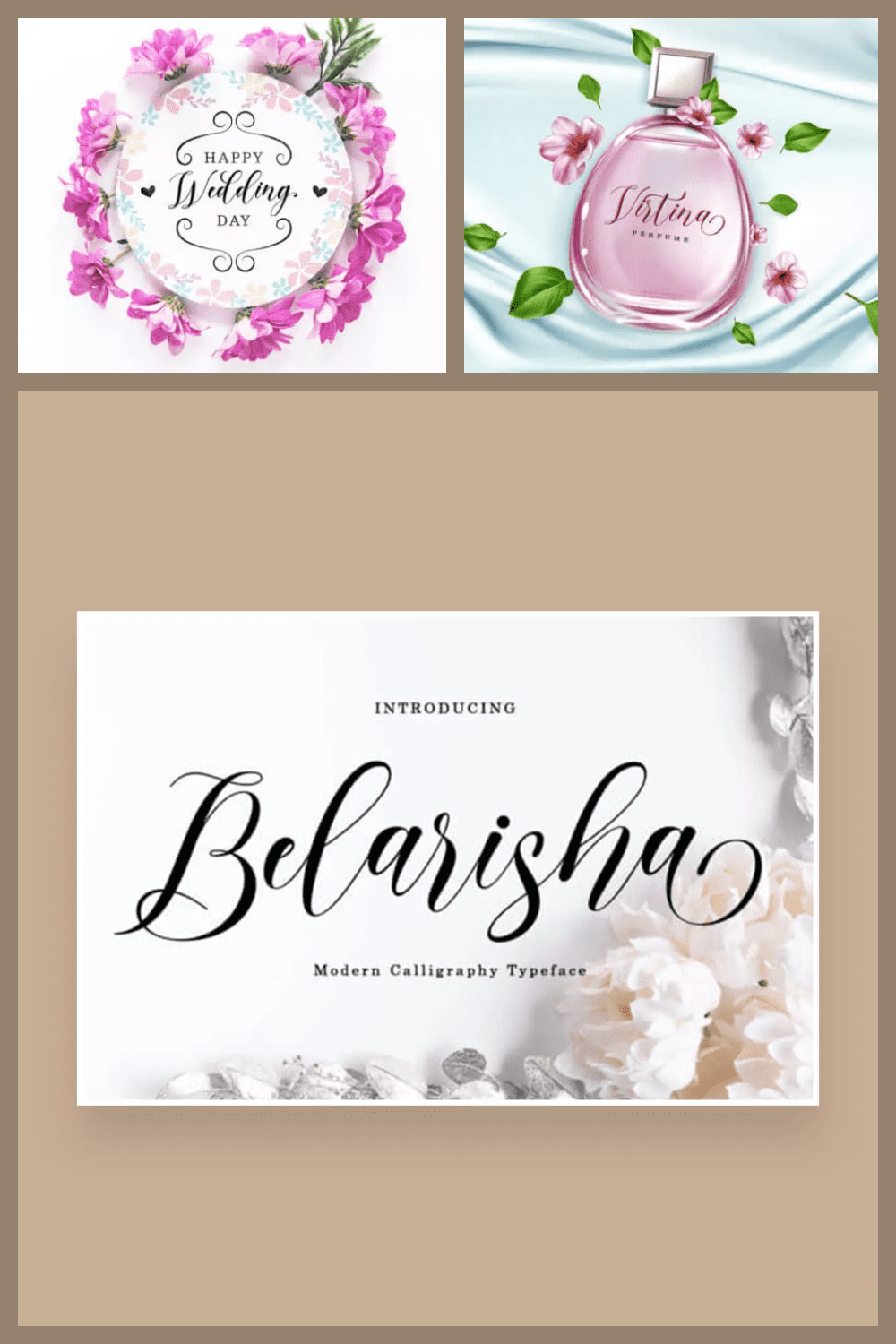
Lavanaa Modern And Stylish Handwritten Font
Lavanaa has a nice and sophisticated style that makes it easy to make your own typography identity. Good for lettering, signatures, typography, magazine, branding, poster, wedding invitations, quotes, letters, and other design projects.
Belarisha Luxurious And Elegant Handwritten Font
Belarisha is a luxurious and elegant handwritten cursive font. It is perfect for branding, logos, wedding invitations, quotes, and any creative projects. It is important to note that it is available for both personal and commercial use.
Spicy Garlic Amazing Handwritten Font
Spicy Garlic Font is a casual, relaxed, and asymmetrical handwritten font. This font is coded in PUA, which means you can easily access all the glyphs and strokes! It’s cute and full of lifestyle, which makes this font a great choice for designing logos, cards, clothing prints, and many other things.
Skeptisgraph A Casual Signature Font
There are many fonts, but among the many different calligraphy fonts, Skeptisgraph looks special. It is perfect for any headlines, logos, product packaging, branding project, mega magazine, social media, wedding, or just used to express words over a background. This font also comes with multilingual support.
Signaday Stylish And Delicate Font
Signaday is a stylish and delicate handwriting font. It has a clean, thin, and smooth line. It is suitable for any branding, product packaging, invitation, quote, t-shirt, label, poster, or logo you want to design.
Rayleigh Amazing Handwritten Font
Rayleigh is a simple calligraphy font that is perfect for product packaging, a branding project, a mega-magazine, social media, a wedding, or simply used to express words over a background. This font includes OTF and TTF formats, Rayleigh also supports multiple languages.
Mandailing Script Calligraphy Font
This amazing handmade font is created in a loose style for those who do work with crafts. It is perfect for all kinds of work such as logos, wedding invitations, headers, t-shirts, letterheads, signs, labels, newsletters, posters, badges, etc.
Everything Modern Calligraphy
Everything Calligraphy is a stylish calligraphy font with a variable baseline and a flowing line. It can be used for a variety of purposes such as headlines, weddings, invitations, signatures, logos, branding, t-shirts, letterheads, signs, plaques, news, posters, badges, etc. This product is available in OTF, TTF, and WOFF formats.
Melarrat Delicate And Elegant Handwritten Font
Melarrat is a delicate and elegant handwritten font. Its clear and well-balanced letters make it one of the best calligraphy script fonts. It is perfect for package design, scrapbooking, magazines, social media, and much more.
Alinka Calligraphy Script Font
Alinka is a bold script font that is perfect for various projects, such as quotes, logos, blog headers, posters, lending, fashion, clothing, letter, invitation, stationery, and so on. It is available in OTF & TTF formats and usable for commercial purposes.
Potregi Sweet And Cursive Handwritten Font
Potregi is a cute and italicized handwritten font. It’s great for designing headlines, logos, banners, posters, typography, and many other things. This font is coded in PUA, which means you can easily access all the glyphs and strokes!
Ottama Beautiful Inline Calligraphy Font
Ottama is a smooth handwritten font characterized by an elegant stroke, ideal for poster design, invitation cards, typography, and pagination. It is suitable for both personal and commercial use and is available in OTF, TTF, and WOFF formats.
Mogaloa Beautiful Modern Calligraphy Font
If you want to use it for your work this font can be used easily and simply because there are many features in it to contain a full set of lowercase and uppercase letters, different punctuation, numbers, and multilingual support. It is suitable for purposes such as wedding invitations, party invitations, graduation invitations, birthday invitations, meeting invitations, etc.